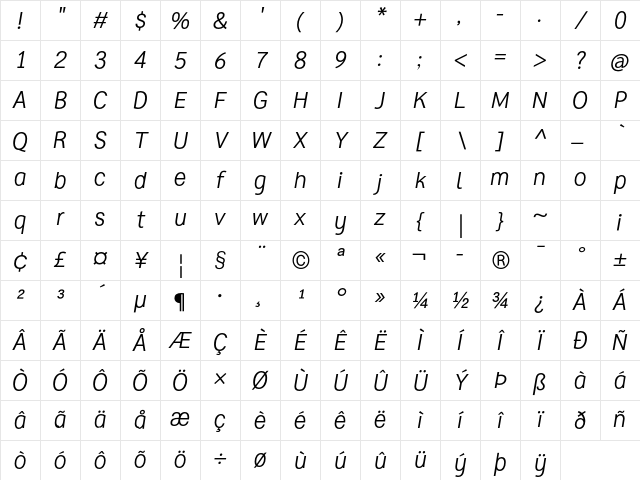
Complete MP KTSarabunMai Regular It glyph index. Displaying only characters natively supported by MP KTSarabunMai Regular It font.
MP KTSarabunMai is a composed and adaptable typeface that performs quietly and consistently across a wide range of design contexts.